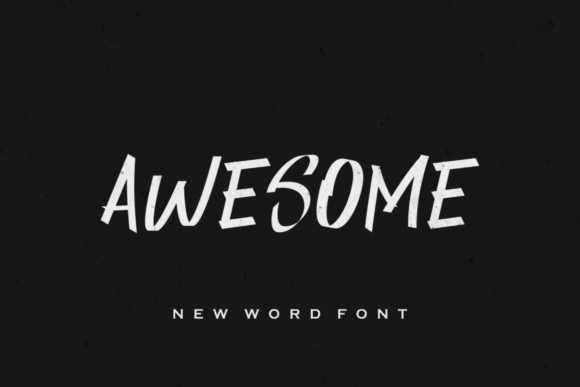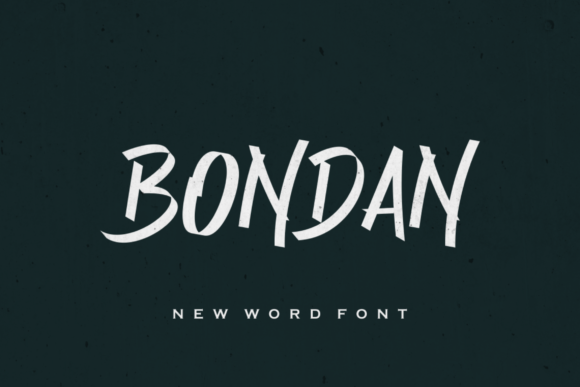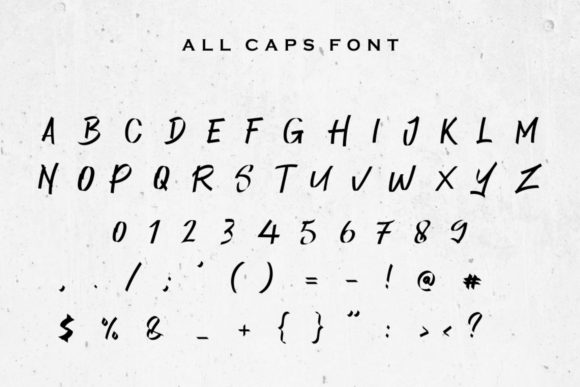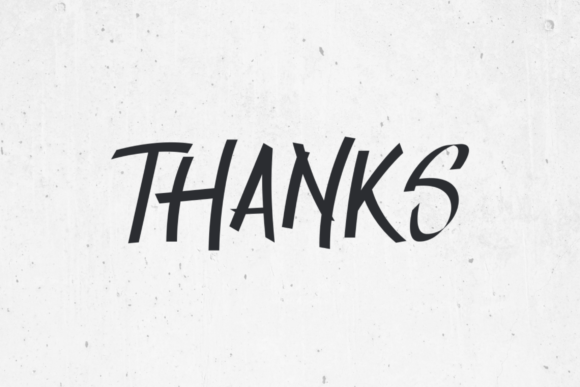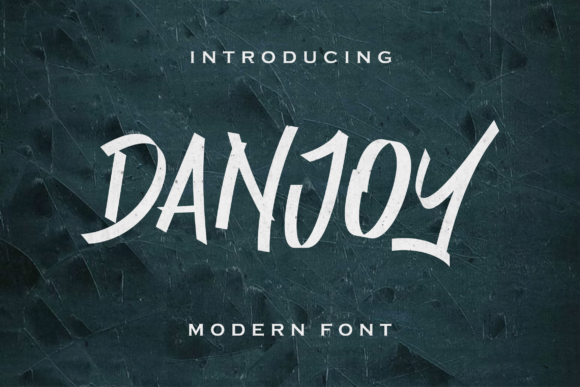
Introducing Danjoy Font: Elevate Your Designs with a Cool and Brushed Display Font
Are you tired of using the same old fonts in your designs? Do you want to add a touch of freshness and uniqueness to your creations? Look no further than Danjoy Font, a stunning brushed display font that’s perfect for designers and crafters looking to take their work to the next level.
What is Danjoy Font?
Danjoy Font is a carefully crafted display font that’s designed to bring a cool and refreshing look to your designs. With its unique brushed texture, Danjoy Font adds a touch of personality and style to any project. Whether you’re working on a logo, poster, or social media graphic, Danjoy Font is the perfect choice for those who want to make a statement.
Key Features of Danjoy Font
- Unique Brushed Texture: Danjoy Font features a distinctive brushed texture that gives it a hand-crafted feel. This texture adds a level of depth and visual interest to your designs, making them stand out from the crowd.
- Cool and Refreshing: Danjoy Font has a cool and refreshing aesthetic that’s perfect for designs that need a modern and edgy look. Its clean lines and smooth curves make it easy to read and visually appealing.
- Highly Versatile: Danjoy Font is a highly versatile font that can be used in a wide range of design applications, from logos and posters to social media graphics and more.
Who is Danjoy Font for?
Danjoy Font is perfect for designers, crafters, and artists who want to add a unique touch to their work. Whether you’re a professional designer or a DIY enthusiast, Danjoy Font is a great choice for anyone looking to create visually stunning designs. Some examples of design projects that Danjoy Font would be well-suited for include:
- Social media graphics and ads
- Invitations and event materials
Tips for Using Danjoy Font
- Use it as a headline font: Danjoy Font is perfect for use as a headline font, where its unique texture and style can really make an impact.
- Pair it with a simple font: For body text, pair Danjoy Font with a simple font to create visual contrast and make your design more readable.
- Experiment with colors: Danjoy Font looks great in a variety of colors, so don’t be afraid to experiment and find the perfect hue for your design.
Danjoy Font is a cool and brushed display font that’s perfect for designers and crafters looking to add a unique touch to their work. With its highly versatile design and easily customizable features, Danjoy Font is a great choice for a wide range of design applications. So why settle for a boring, generic font when you can elevate your designs with the fresh and stylish look of Danjoy Font?